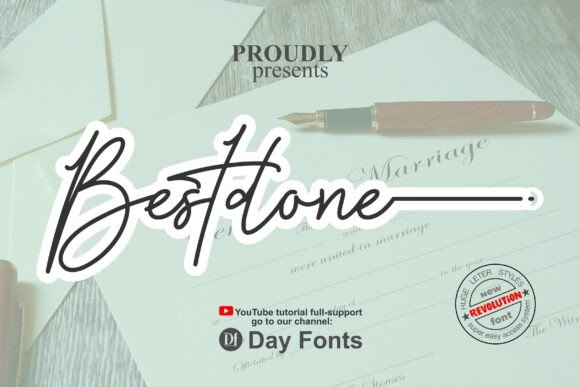
The Bestdone Font: Elevate Your Designs with Elegance
An Honest Review of Bestdone Font
So, what makes Bestdone font so special? Here’s my honest review:
- ✨ Gorgeous, modern calligraphy: Bestdone font is a stunning example of modern calligraphic design. Its flowing lines and beautiful rhythm make it perfect for creating classy compositions.
- ✅ Versatile: This font is incredibly versatile and can be used for a wide range of projects, from branding and invitations to web graphics and cards.
- ✅ Elegant and sophisticated: Bestdone font exudes elegance and sophistication, making it perfect for high-end designs.
Of course, no font is perfect, and Bestdone has a few small quirks:
- ⚠️ Limited use in body text: While Bestdone font is stunning as a display font, it’s not the best choice for body text. It’s a bit too ornate for long blocks of text.
- 🤔 Some glyphs may require adjustment: Depending on your design, you may need to adjust some glyphs to get the perfect fit.
- Experiment with OpenType features like ligatures and stylistic alternates to add more flair to your design.
- Explore Glyphs and OpenType features to access alternative characters and ligatures.
Bestdone font was designed with one goal in mind: to create a beautiful, modern calligraphic font that would inspire designers to create stunning compositions. The designer, a master calligrapher, spent countless hours perfecting the font’s flowing lines and elegant rhythm. The result is a font that’s both sophisticated and versatile.
| What makes Bestdone font so special? | Bestdone font is a stunning example of modern calligraphic design, with its flowing lines and beautiful rhythm making it perfect for creating classy compositions. |
| Is Bestdone font suitable for body text? | While Bestdone font is stunning as a display font, it’s not the best choice for body text. It’s a bit too ornate for long blocks of text. |